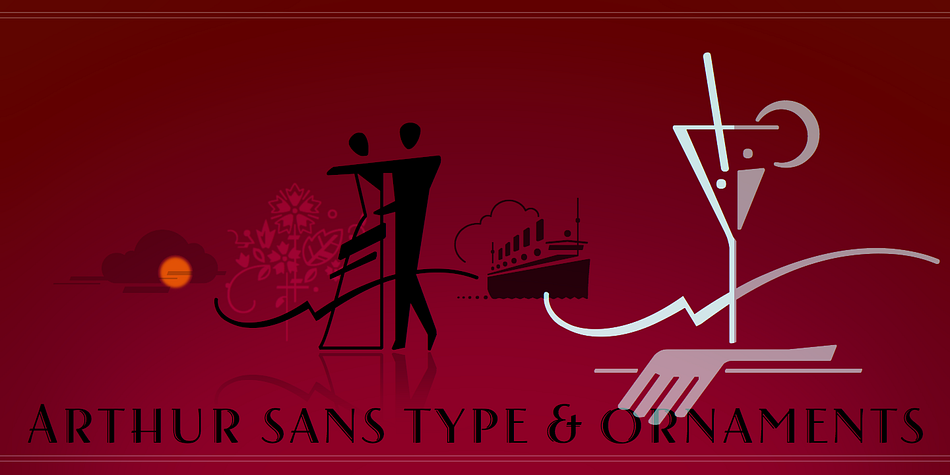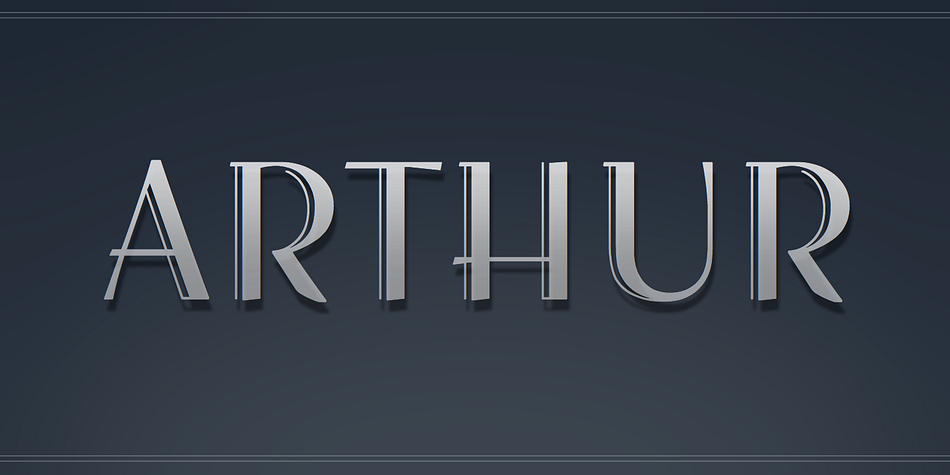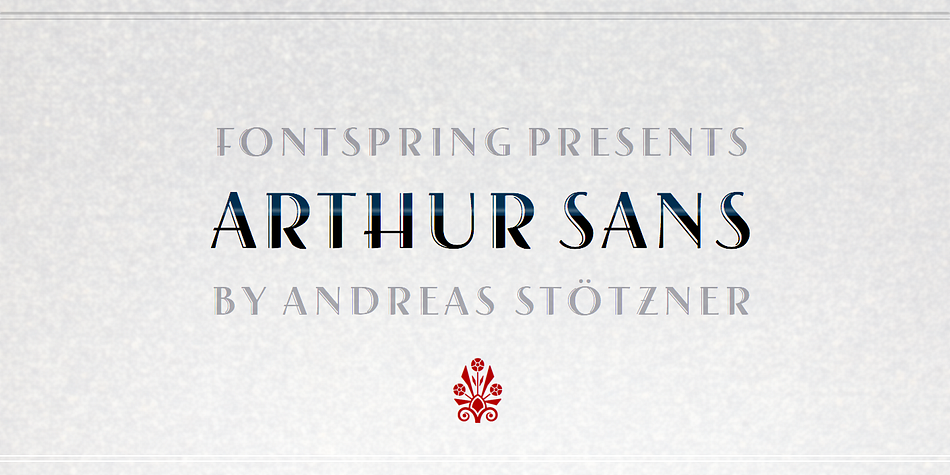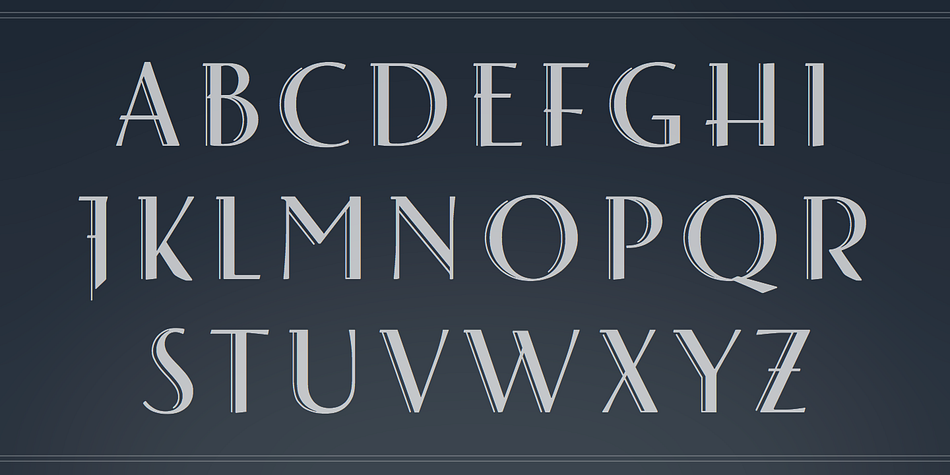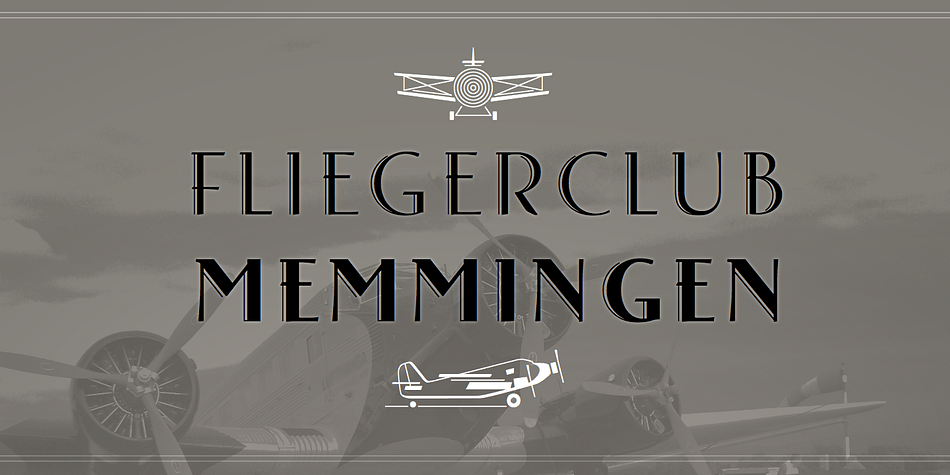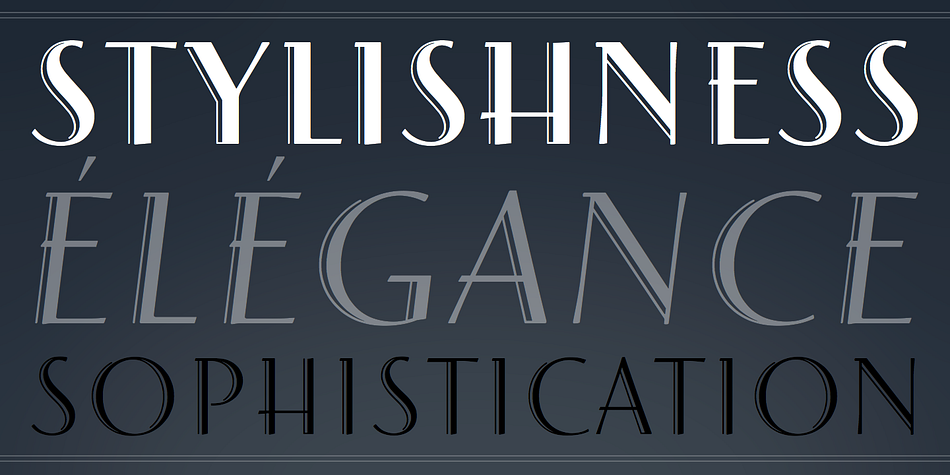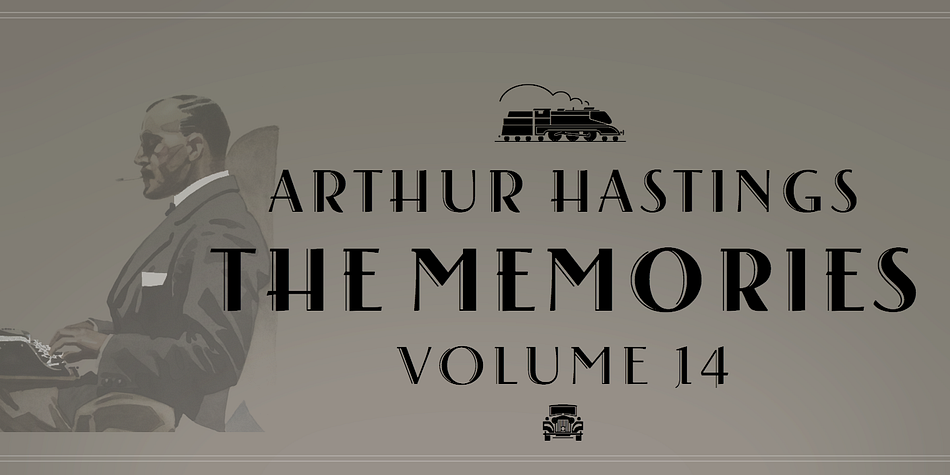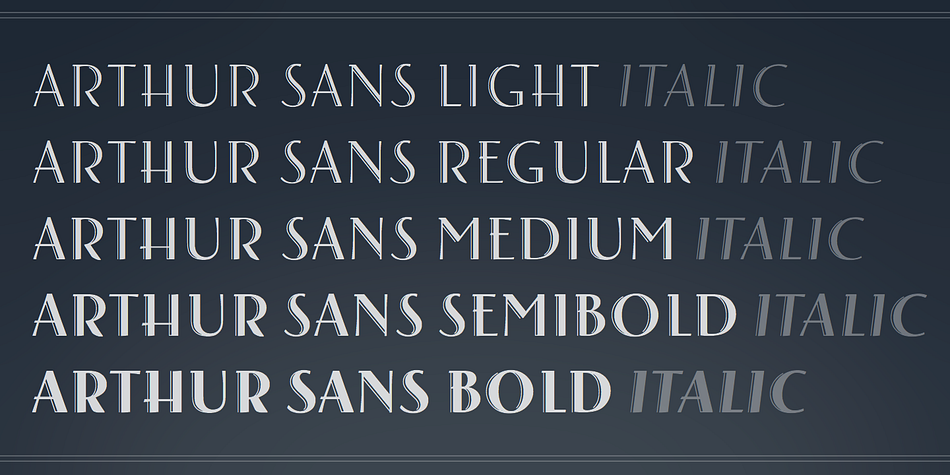
Designed by Andreas Stötzner, Arthur Sans is a art deco font family. This typeface has ten styles and was published by Andreas Stötzner.
Arthur Sans is a new font design in the spirit of the Art Deco era, the age of elegance, stylishness, and refinement. Use this unique typeface for distinctive personal stationary, outstanding business papers, captivating brochures, and invitations; for marvelous posters, wonderful menus, hotel leaflets, and outstanding headlines.
You’ll find out that Arthur Sans is your friend for more than just fine typography. Five weights plus Italics – all equipped with a comprehensive Euro-Latin character set – will hardly leave anything to be desired.
Additionally, the font Arthur Sans Regular contains an outstanding extra range of 70 ornamental characters, carefully designed to the very tone of the typeface, to give you extra value to enchant your designs. (Alternatively, you can get this set of ornaments separately as a single font, look for “Arthur Ornaments”) – If you like Arthur Sans you may wish to also check out the sister fonts of the gorgeous Arthur Cabinet family, which will offer you yet more exciting typographic possibilities.